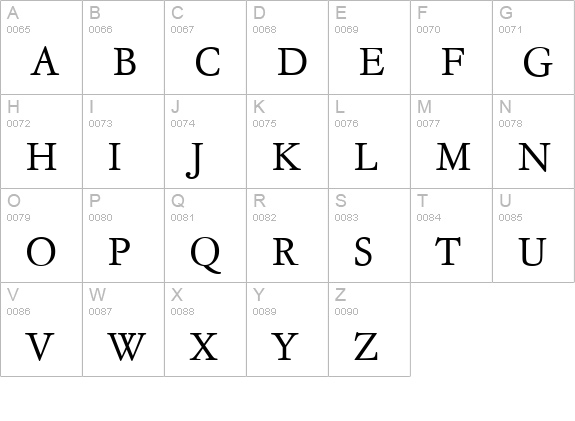
GaramondNo4TEELig Font Details
GaramondNo4TEELig font is a timeless and elegant typeface that exudes sophistication and classic charm. Its delicate serifs and graceful curves make it an ideal choice for projects that require a touch of refinement. This font is perfect for conveying a sense of tradition and heritage while maintaining a modern appeal. What sets GaramondNo4TEELig font apart is its versatility - it can be used for a wide range of design projects, from elegant invitations to professional documents. Its readability and clarity make it a favorite among designers and typographers alike. The best part is that GaramondNo4TEELig font is available for free download at FontsMarket.com. This means that you can enjoy the beauty and elegance of this font without any cost. So go ahead and elevate your designs with the timeless appeal of GaramondNo4TEELig font today!